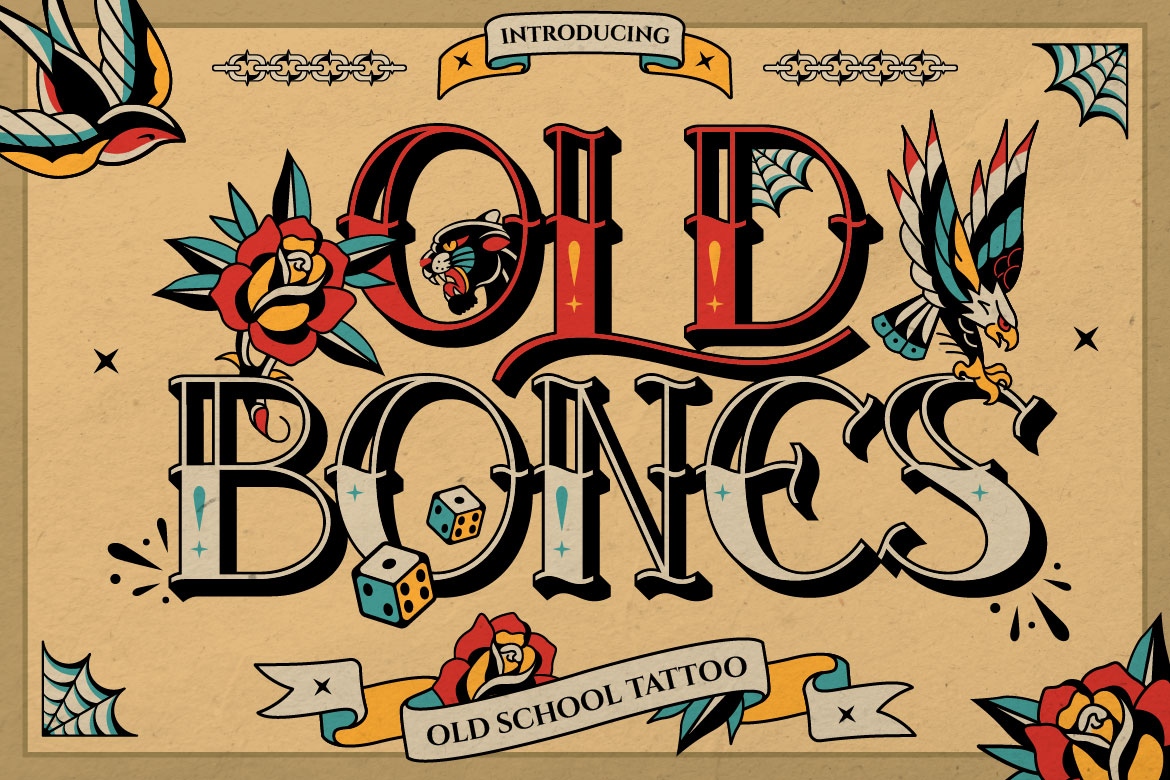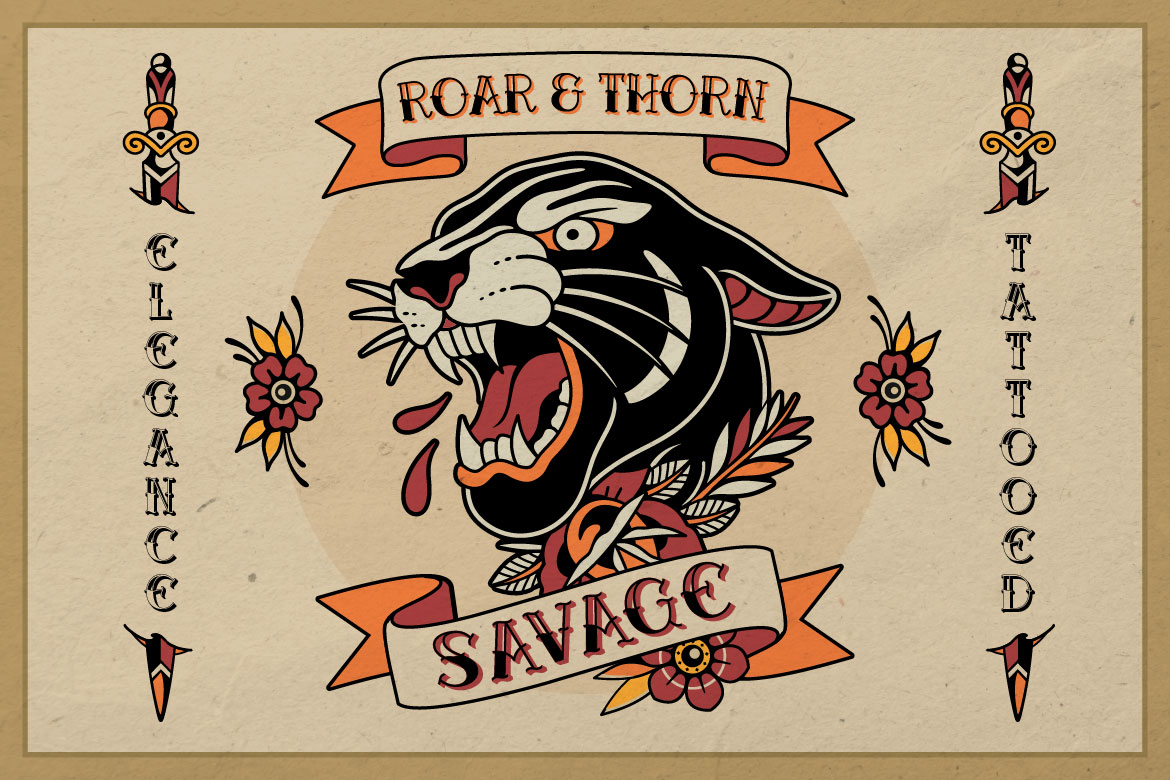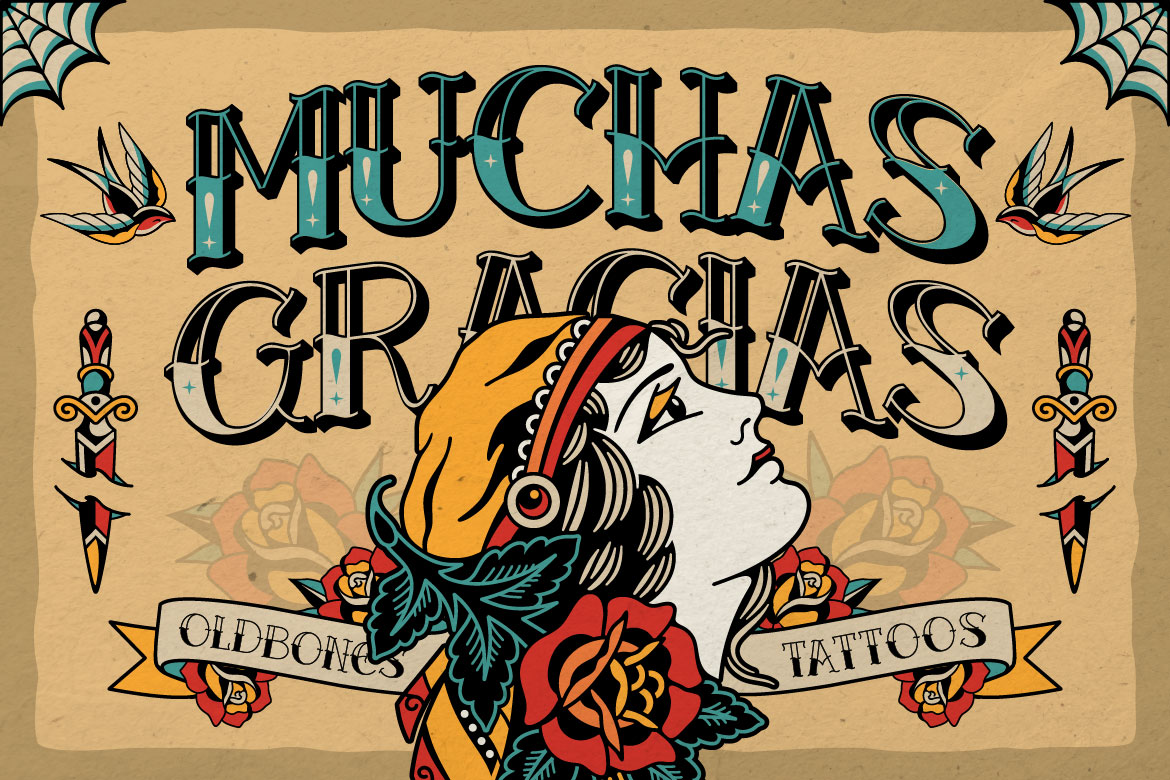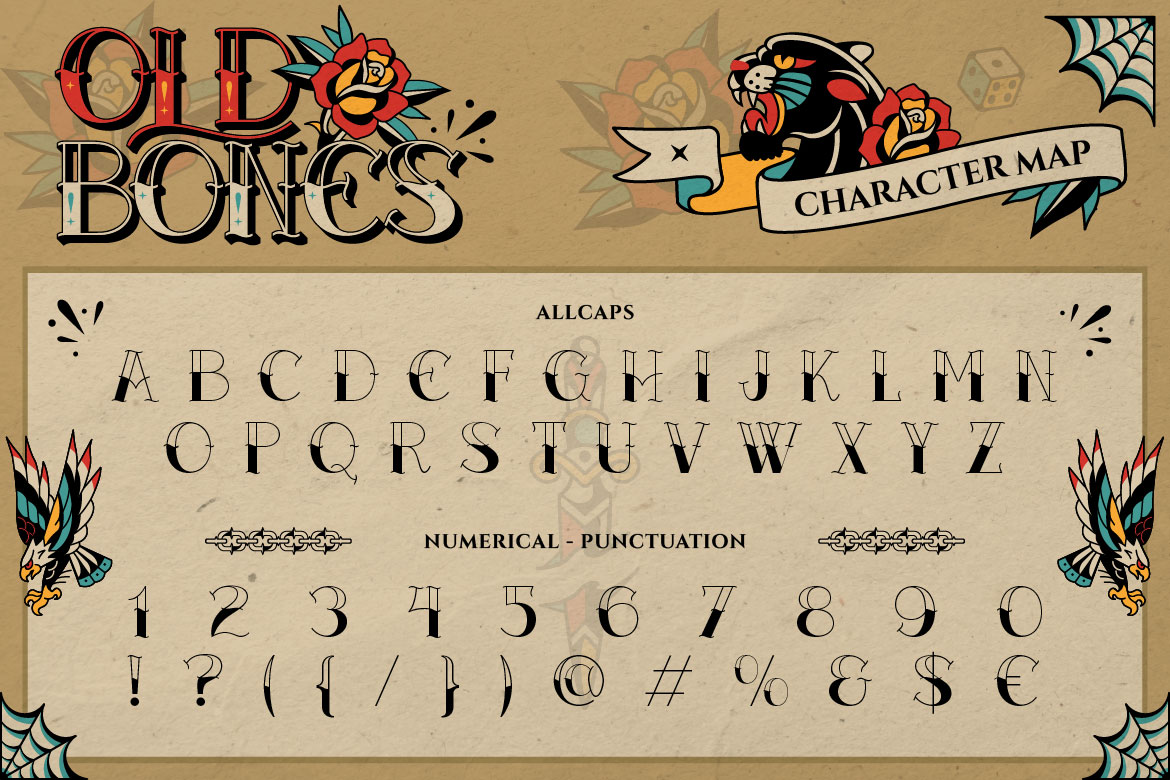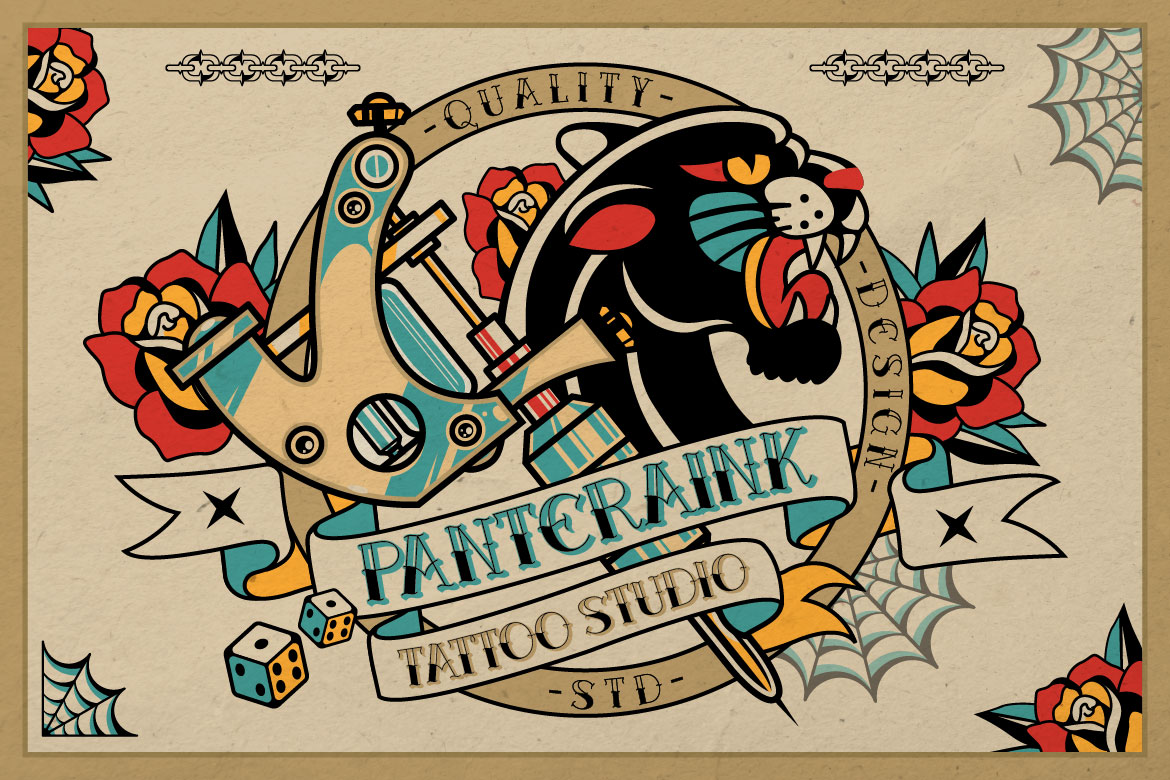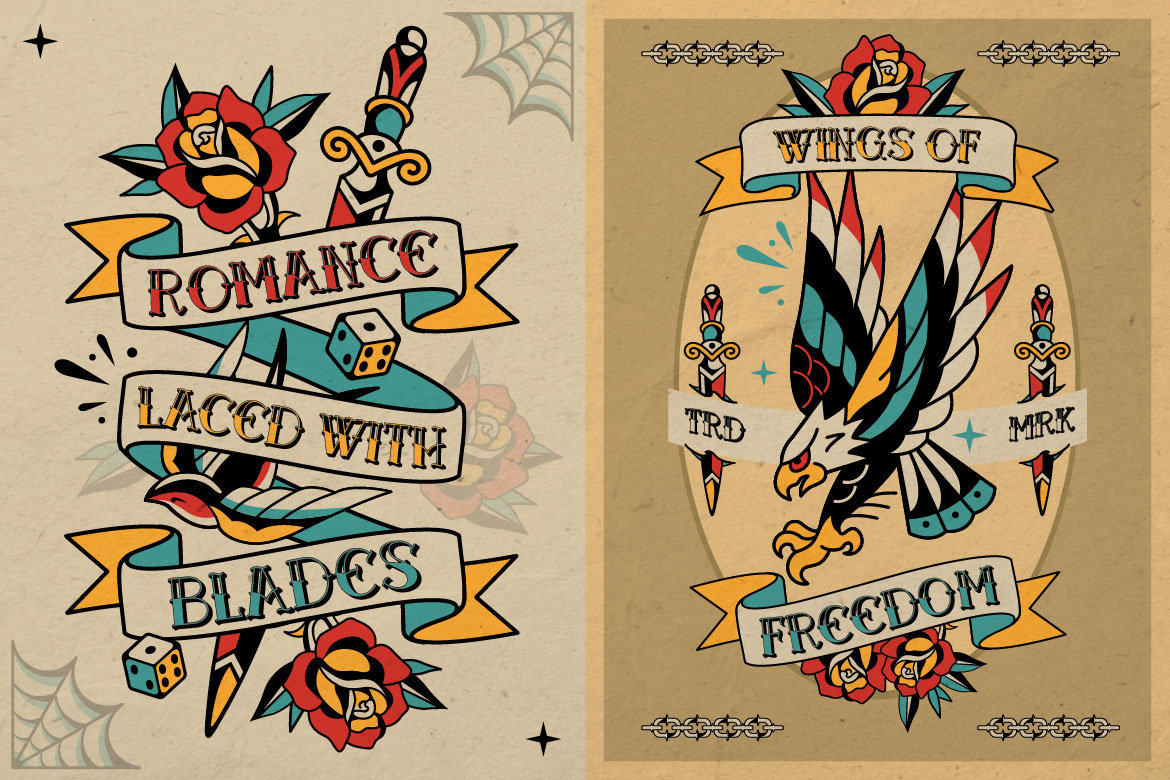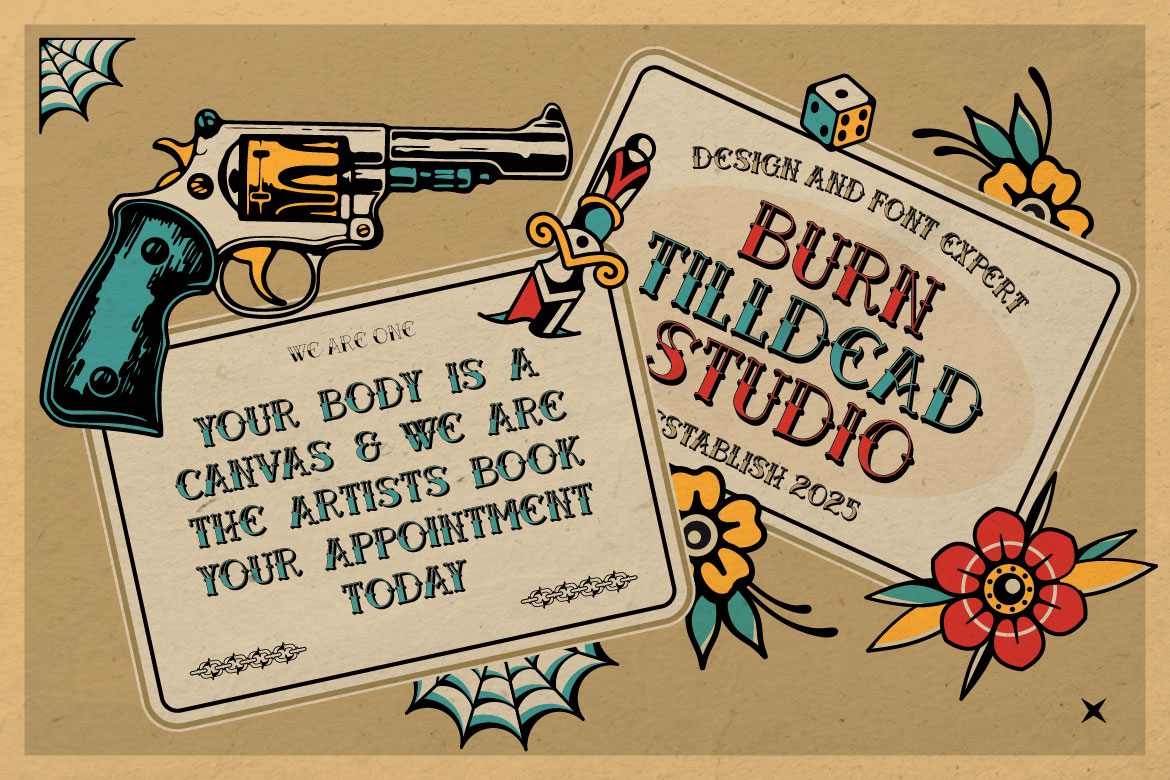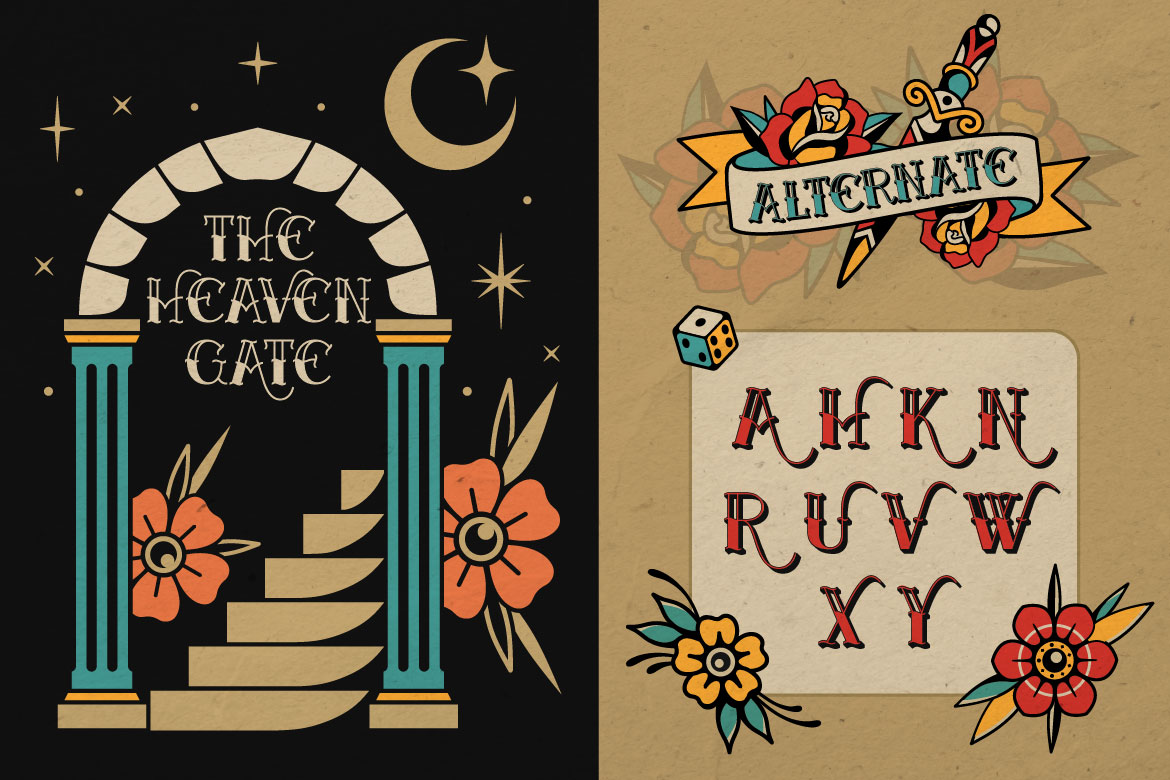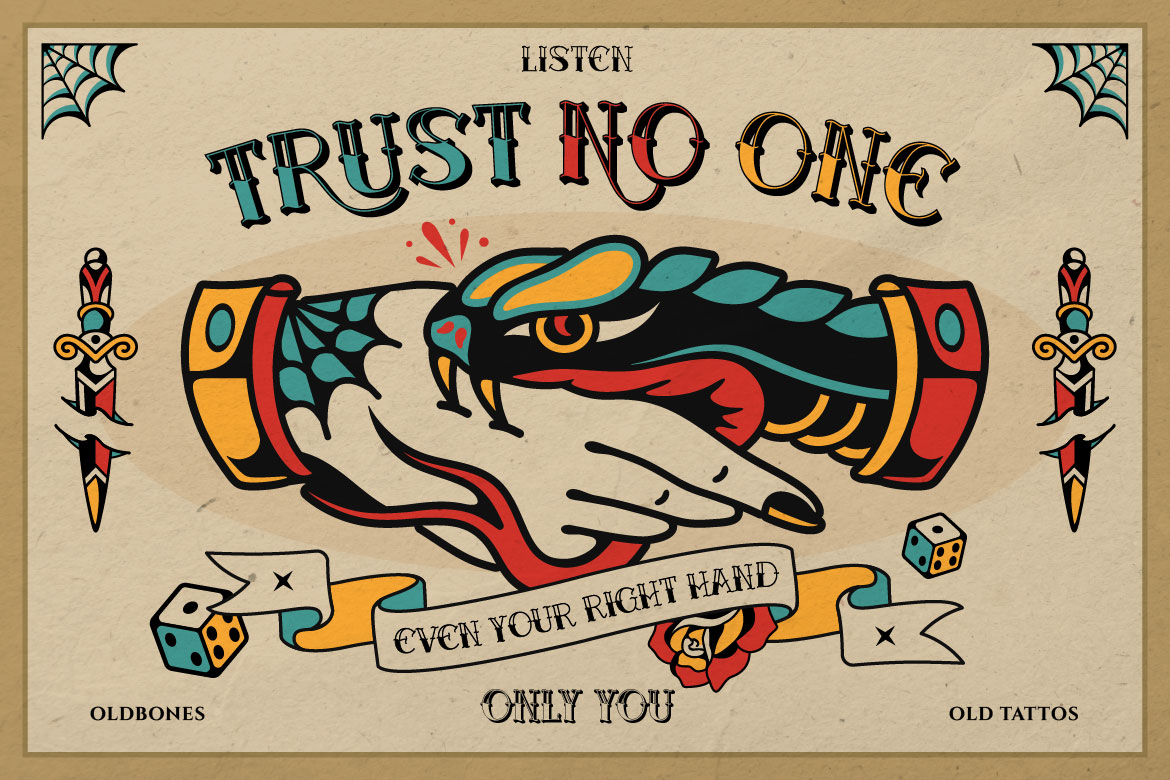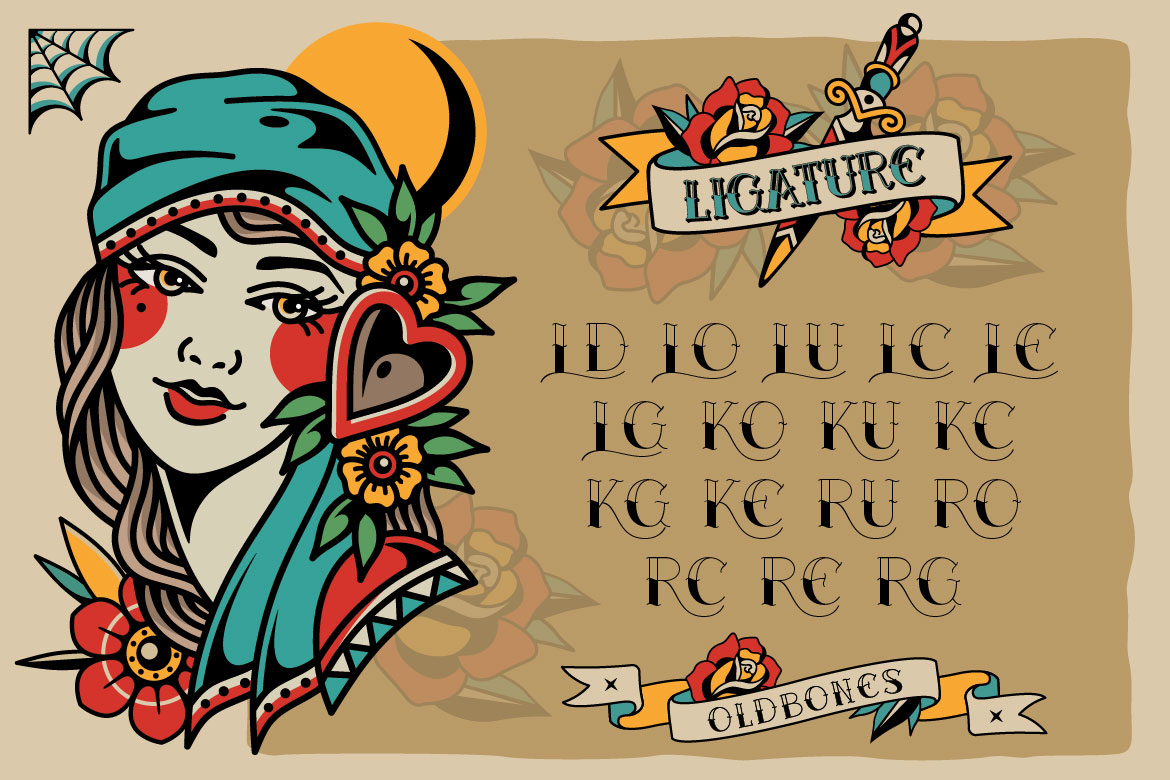
Oldbones
Proudly present Oldbone, a font inspired by 1950s tattoo studio culture, bringing that classic ink vibe into modern design. It comes with two styles: Regular and 3D, making your typography look bolder, more alive, and full of character. With its traditional American tattoo style, Oldbone can be your inspiration for a lettering tattoo.
Perfect for clothing brands, barbershops, tattoo studios, or cafés with a vintage or rockabilly concept. Whether you’re designing gig posters, album sleeves, or stickers, Oldbones will help your work stand out.
More than just letters — this font screams attitude and rebellion.
- Uppercase & Lowercase (All Caps)
- Alternate
- Ligature